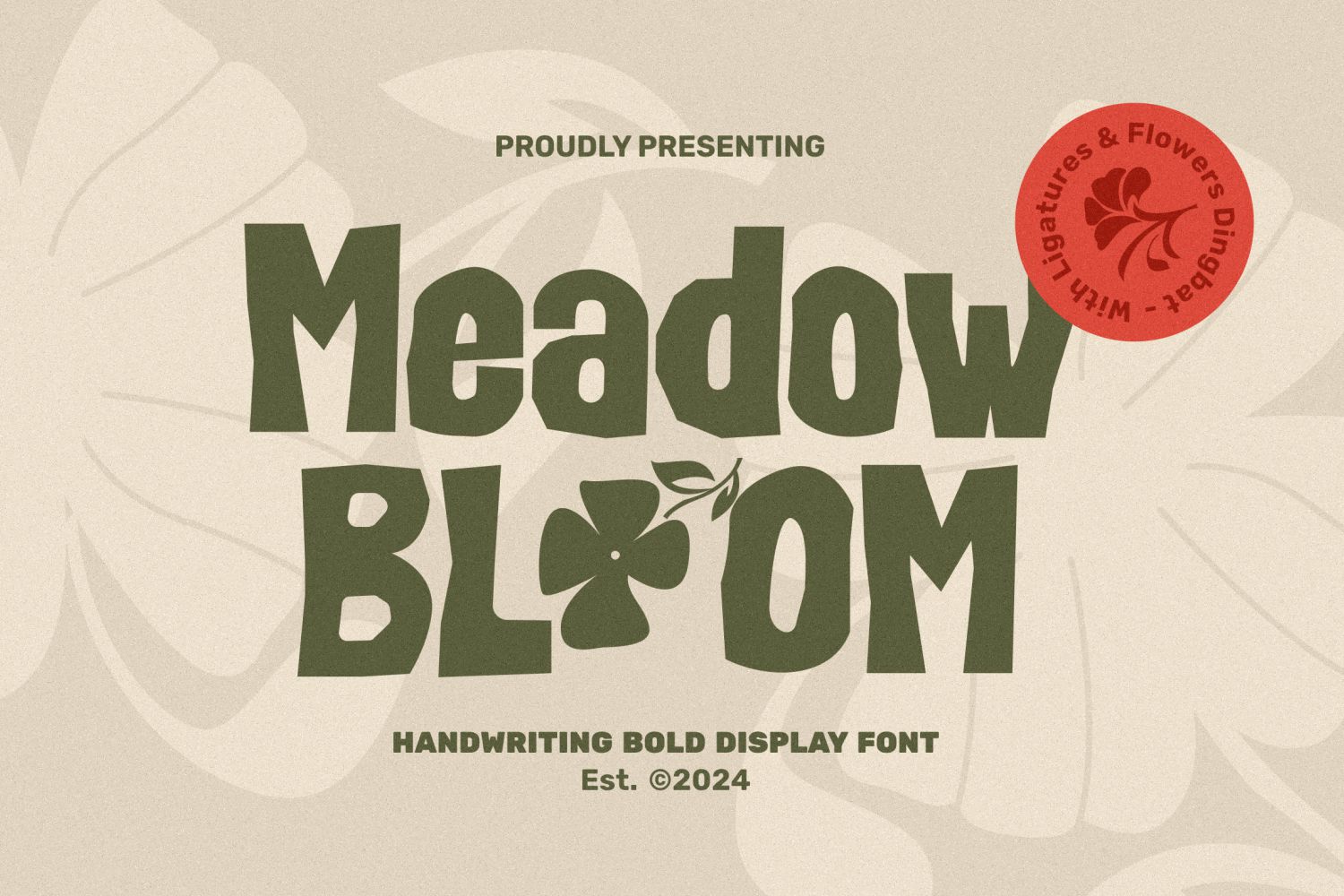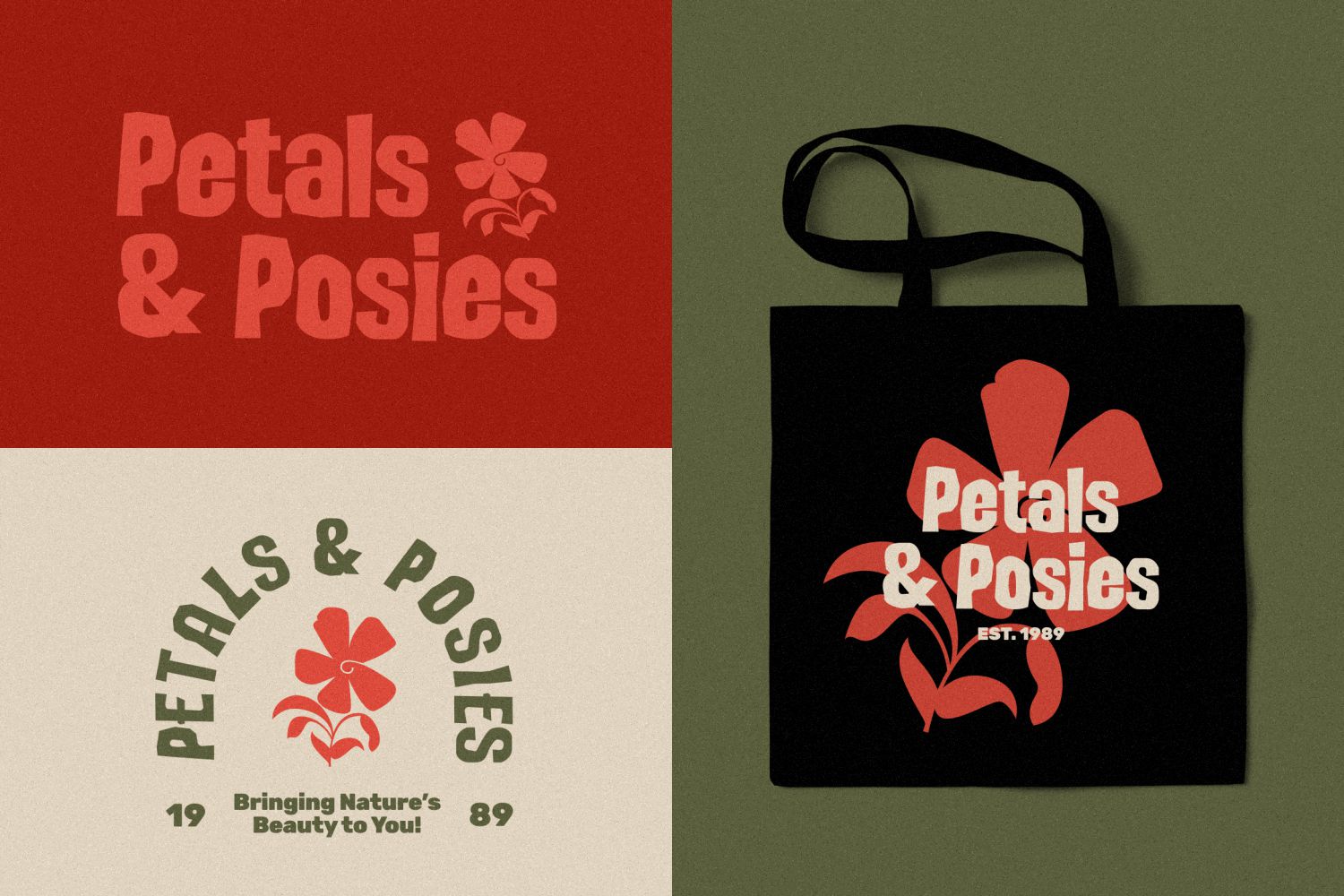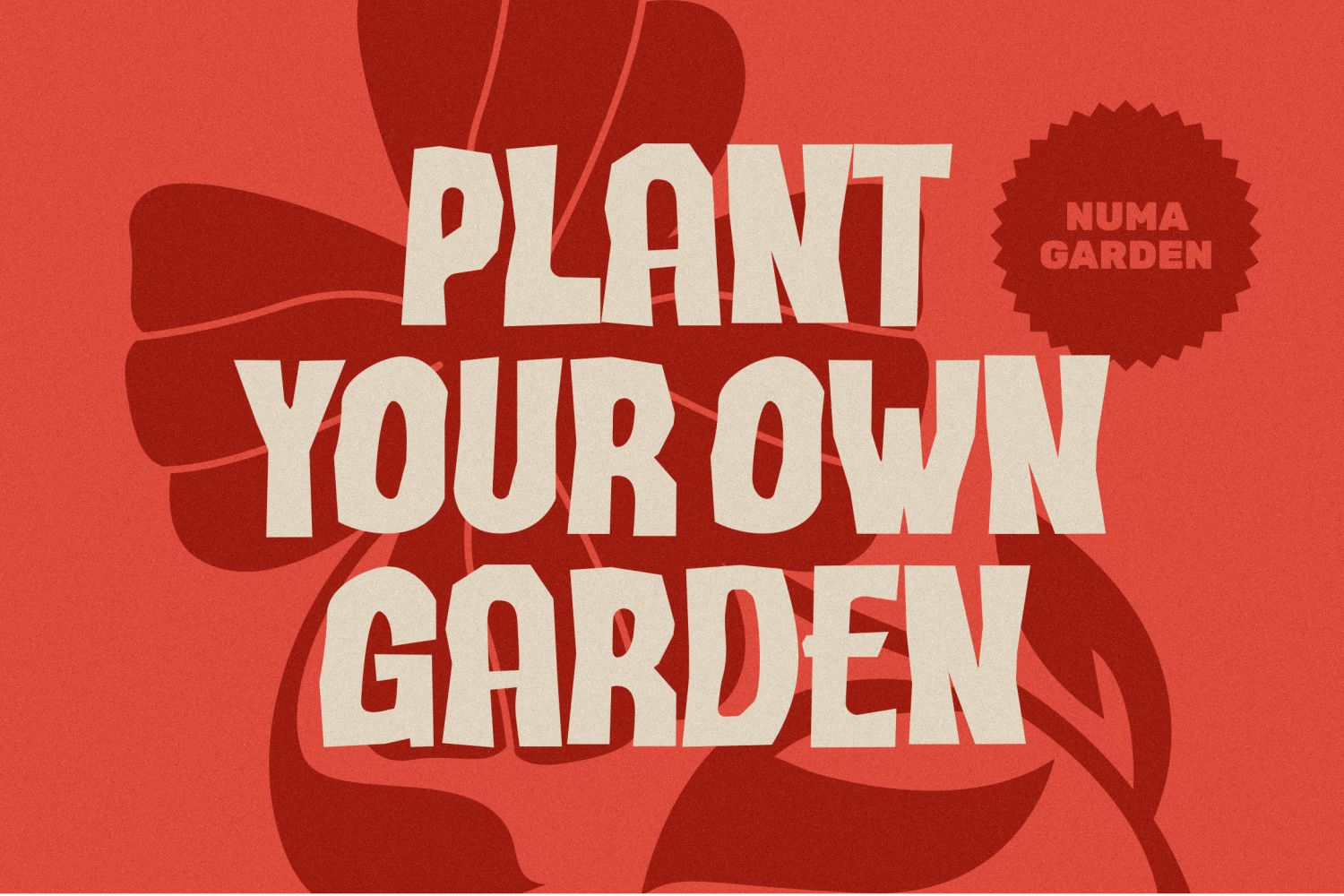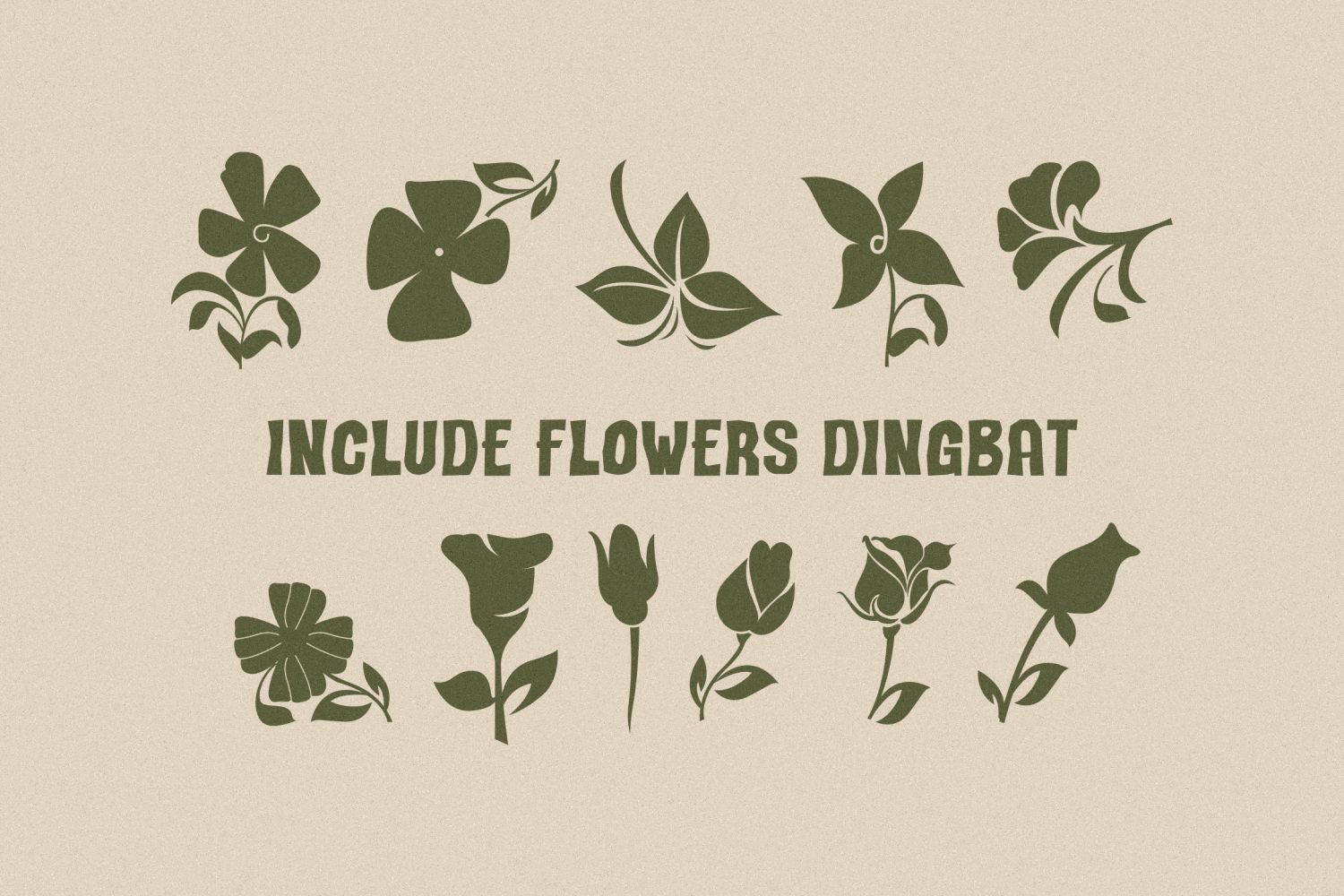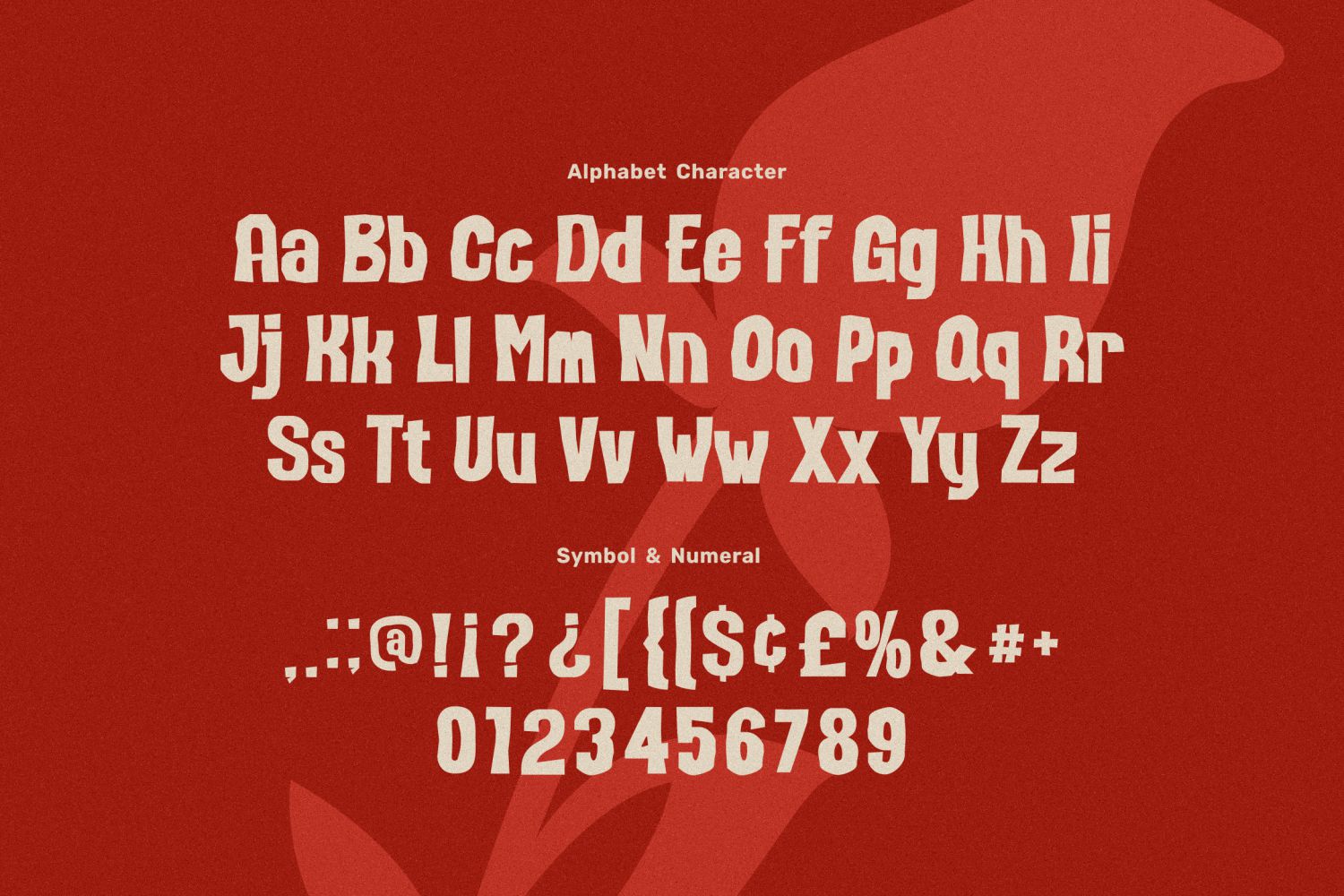
Meadow Bloom is a bold and playful handwritten display font inspired by the charm of blooming flowers and natural beauty. Its chunky letterforms, paired with organic shapes, bring a warm, friendly, and eye-catching vibe to any design. The font comes with floral dingbats and ligatures that make it perfect for crafting unique and artistic compositions, whether for branding, packaging, or nature-inspired projects.
With its whimsical yet strong presence, Meadow Bloom is ideal for logos, posters, apparel, invitations, and social media graphics that seek a creative, handmade touch. The included flower illustrations add extra decorative flair, allowing you to combine typography and visuals seamlessly. This font is your go-to choice for designs that radiate joy, creativity, and a love for nature.